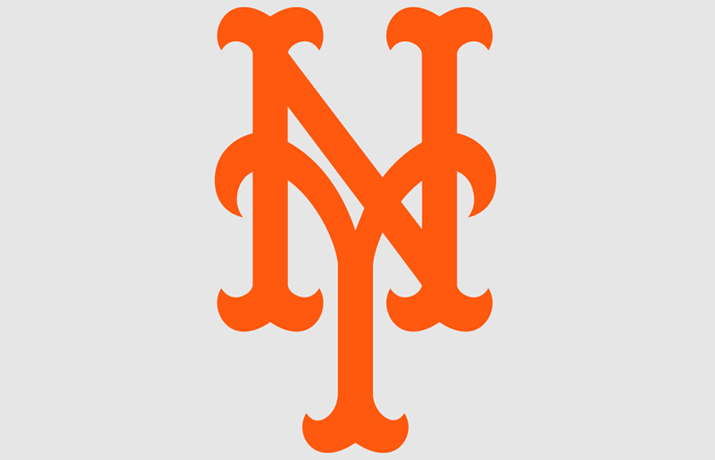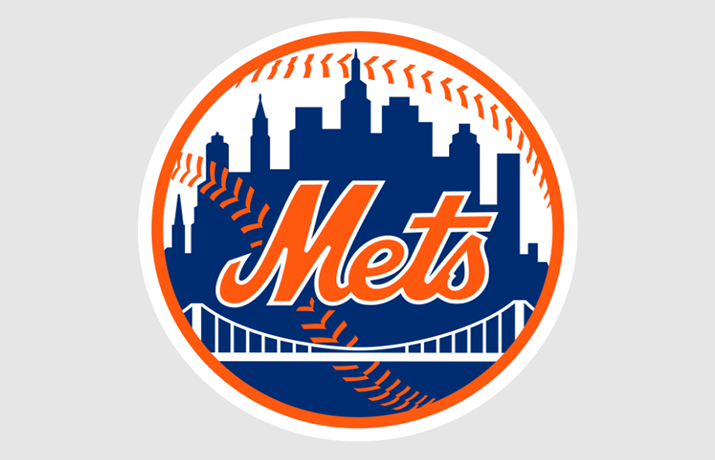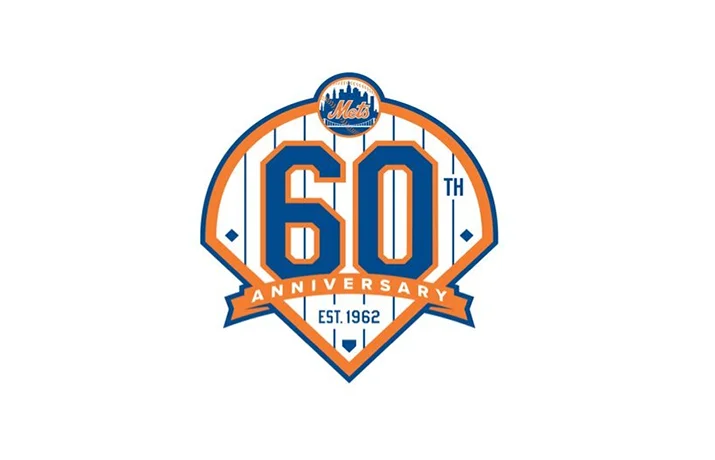
Introducing New York Mets Font! The New York Mets logo has been almost the same since its creation in 1962.
Basically, New York Mets are an American baseball club formed in 1962 and based in the New York City borough of Queens.
He plays in Major League Baseball’s National League (NL) East Division. They are one of two MLB clubs based in New York City, the other being the New York Yankees.
The “Mets” in the logo is probably custom lettering and some fonts that are similar to it are Spills Base from Comi Craft, Buffalo Nickel from Nick Curtis.
Spills were designed by John Roshell and published by Comicraft. Spills contain 6 styles. Buffalo Nickel Font was designed by Nicks Font. It comes in one weight.